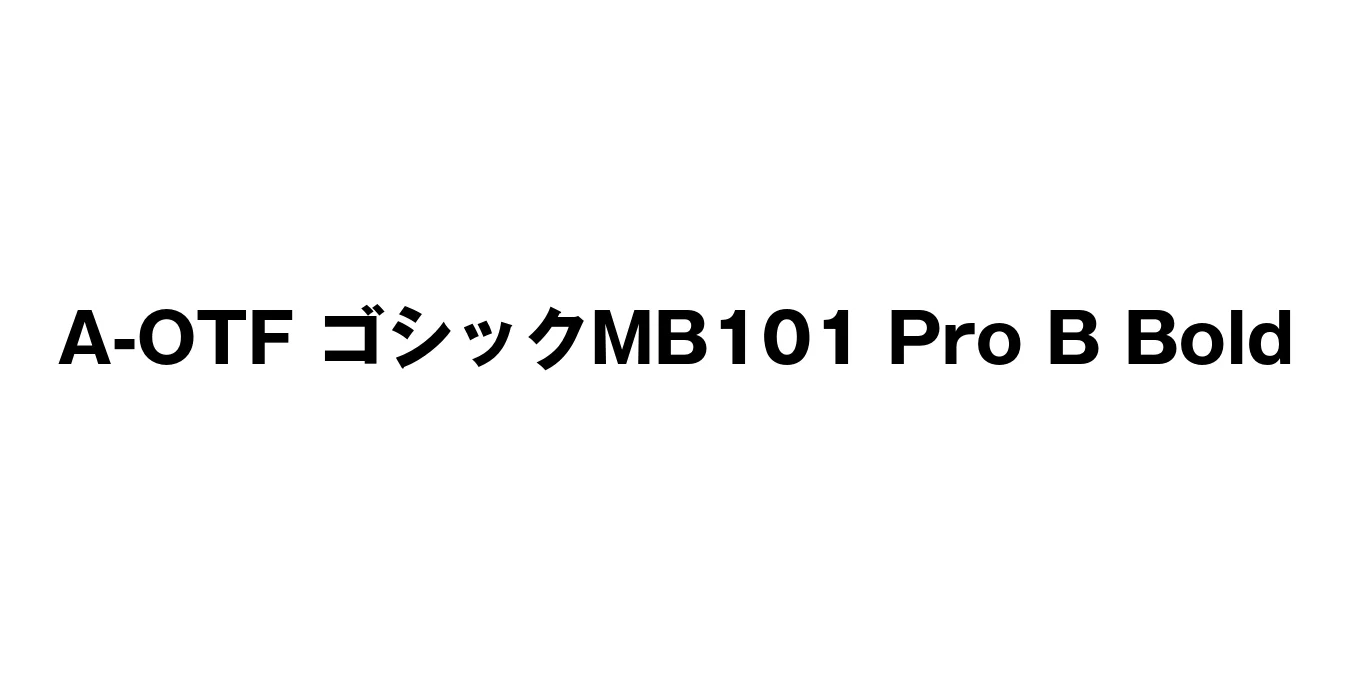
A-OTF ゴシックMB101 Pro B Bold
Designed by Morisawa Inc. Design Team
| Category | Sans-serif / Japanese Gothic |
| Designer | Morisawa Inc. Design Team |
| Similar Fonts | Hiragino Kaku Gothic, Shin Go, MS Gothic, Yu Gothic |
A-OTF Gothic MB101 Pro B Bold is a foundational Japanese Gothic (sans-serif) typeface developed by the industry-leading foundry Morisawa. It was meticulously crafted to provide a strong, authoritative presence while maintaining the traditional aesthetics of Japanese character structures. The Bold (B) weight is specifically engineered for high-impact messaging, offering excellent legibility and a balanced visual rhythm that makes it a favorite among professional graphic designers and typographers worldwide.
Throughout its history, Gothic MB101 has become synonymous with quality in digital publishing. Its design features subtle, refined stroke endings and consistent counter spaces which ensure that even at large sizes, the characters remain elegant and clear. This font has played a pivotal role in Japanese advertising and editorial design, bridging the gap between historical calligraphy and the demands of modern, high-resolution screen and print media.
A-OTF ゴシックMB101 Pro B Bold Best Uses
Ideal for powerful headlines and large-scale poster designs.
Perfect for magazine titles and featured section headers.
Suited for creating strong and reliable brand logos.
Excellent for bold interface elements and navigational titles.